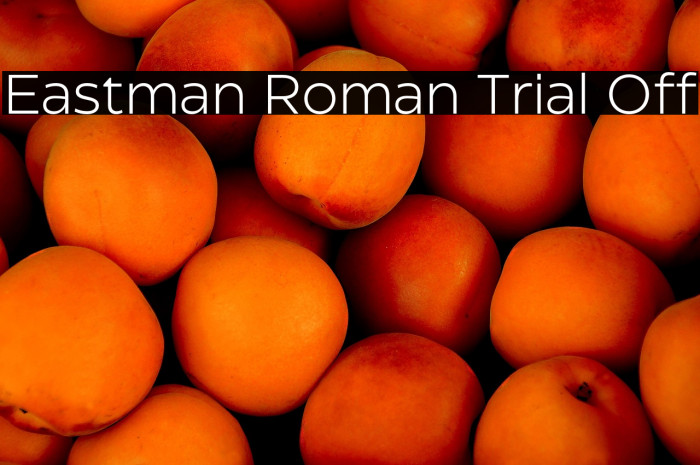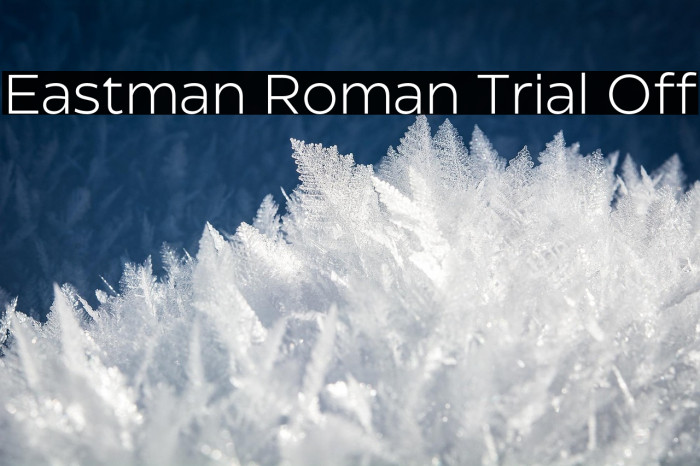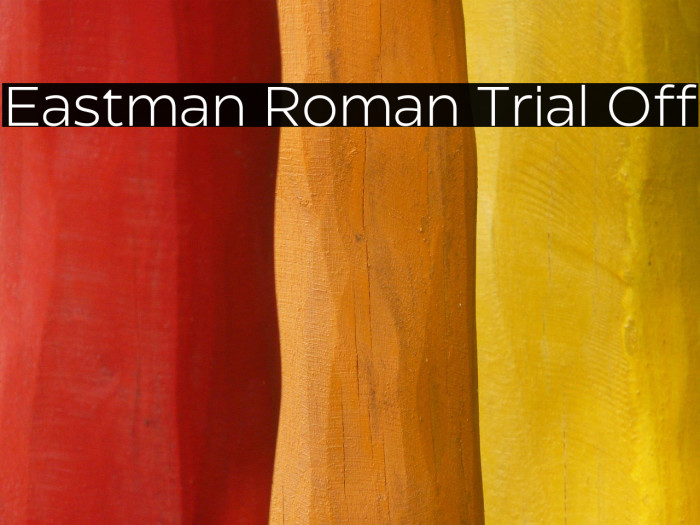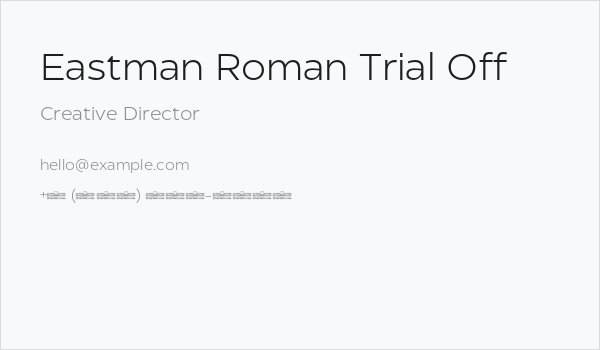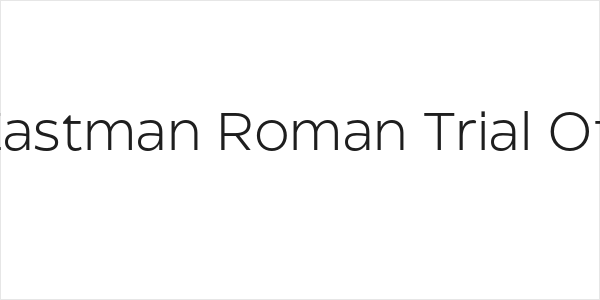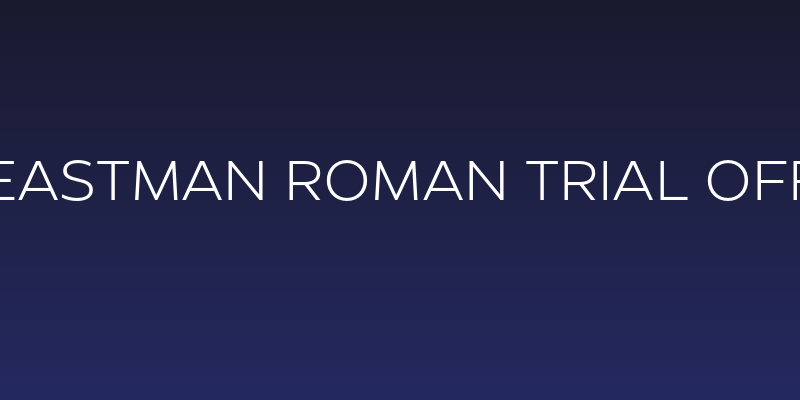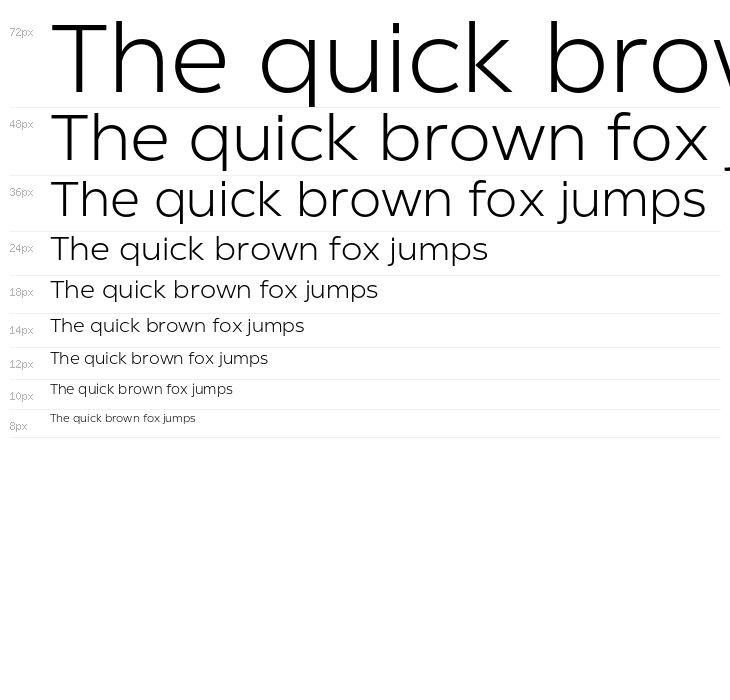
Eastman Roman Trial Off Font
Eastman Roman Trial Off Description
This font features a clean and modern sans-serif style with a geometric structure. The characters are evenly spaced with a consistent stroke width, providing a balanced and harmonious appearance. The uppercase letters are bold and assertive, while the lowercase letters maintain a friendly and approachable look. The numerals and special characters are designed to complement the alphabet, ensuring readability and versatility across various applications. The overall design is sleek and professional, making it suitable for both digital and print media.